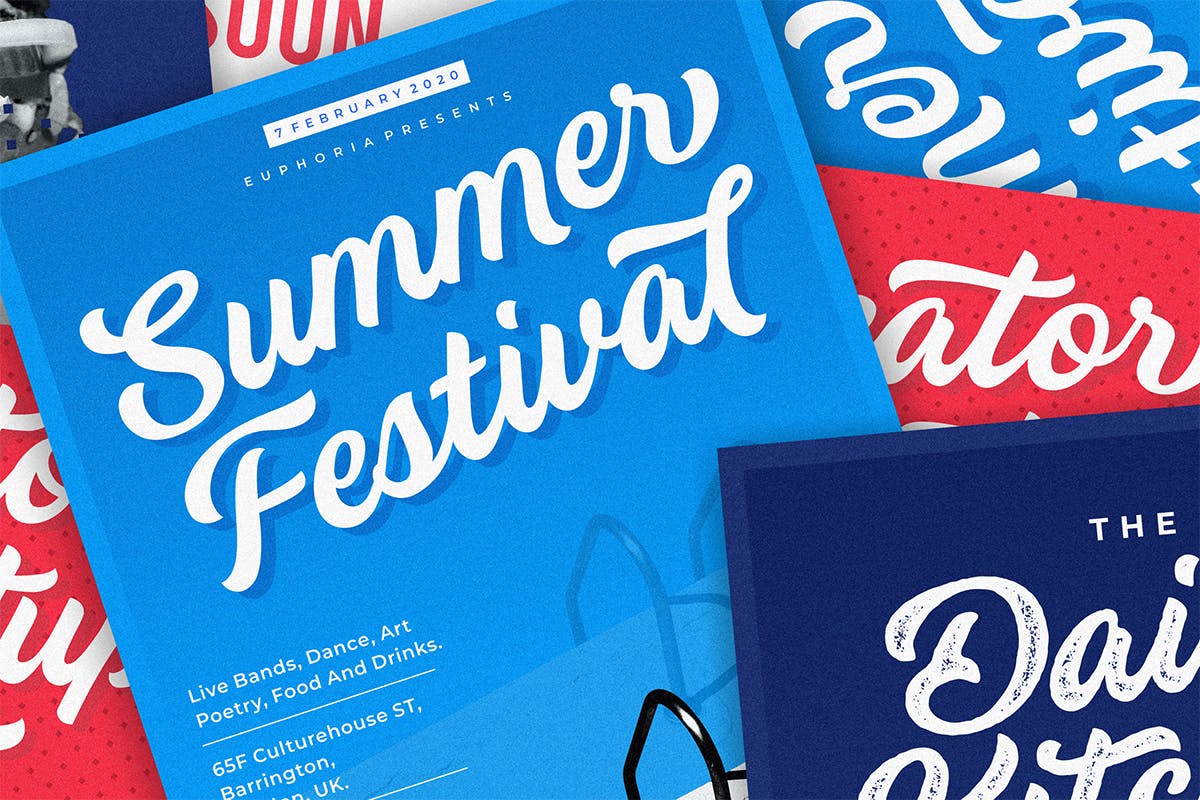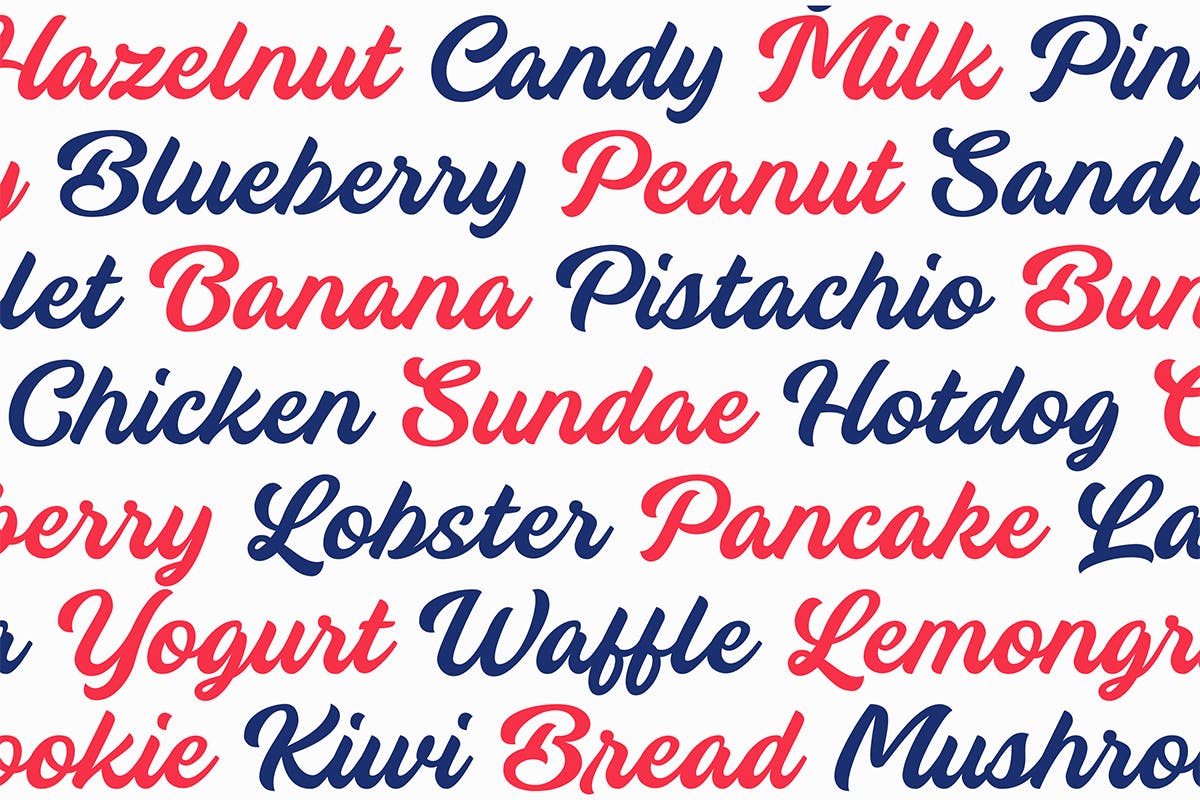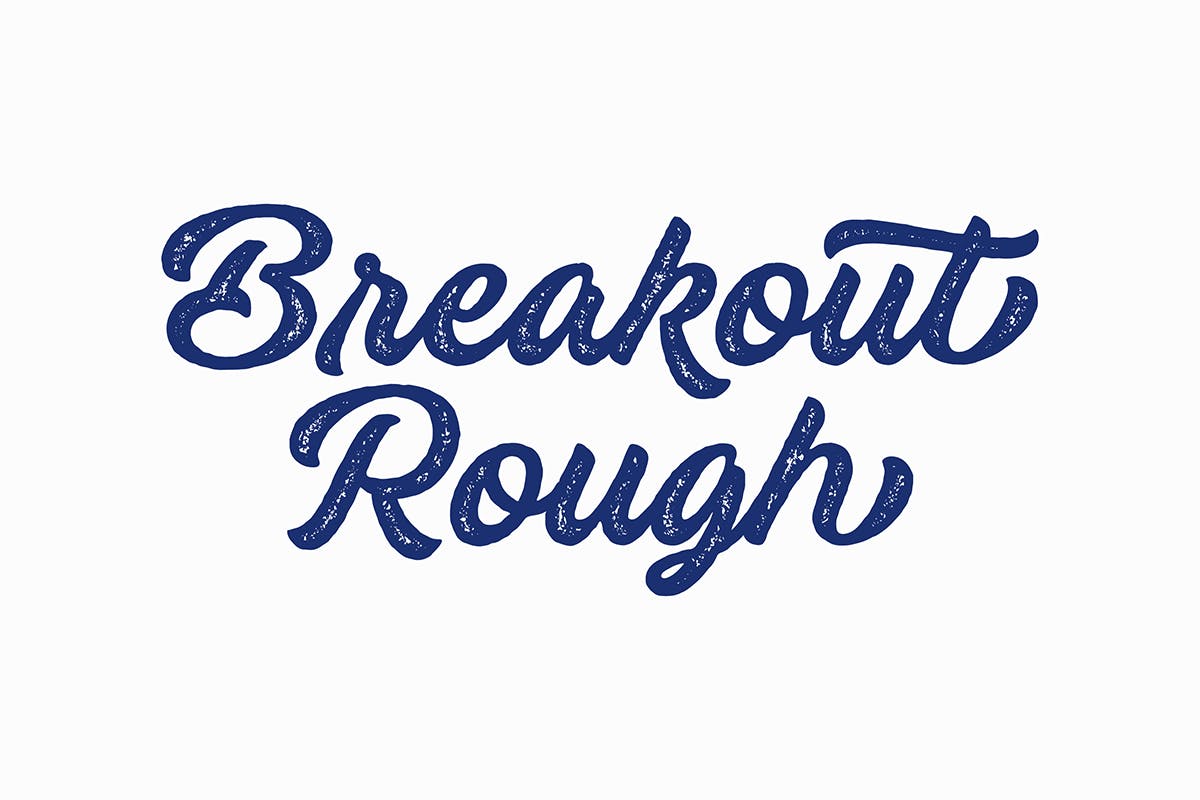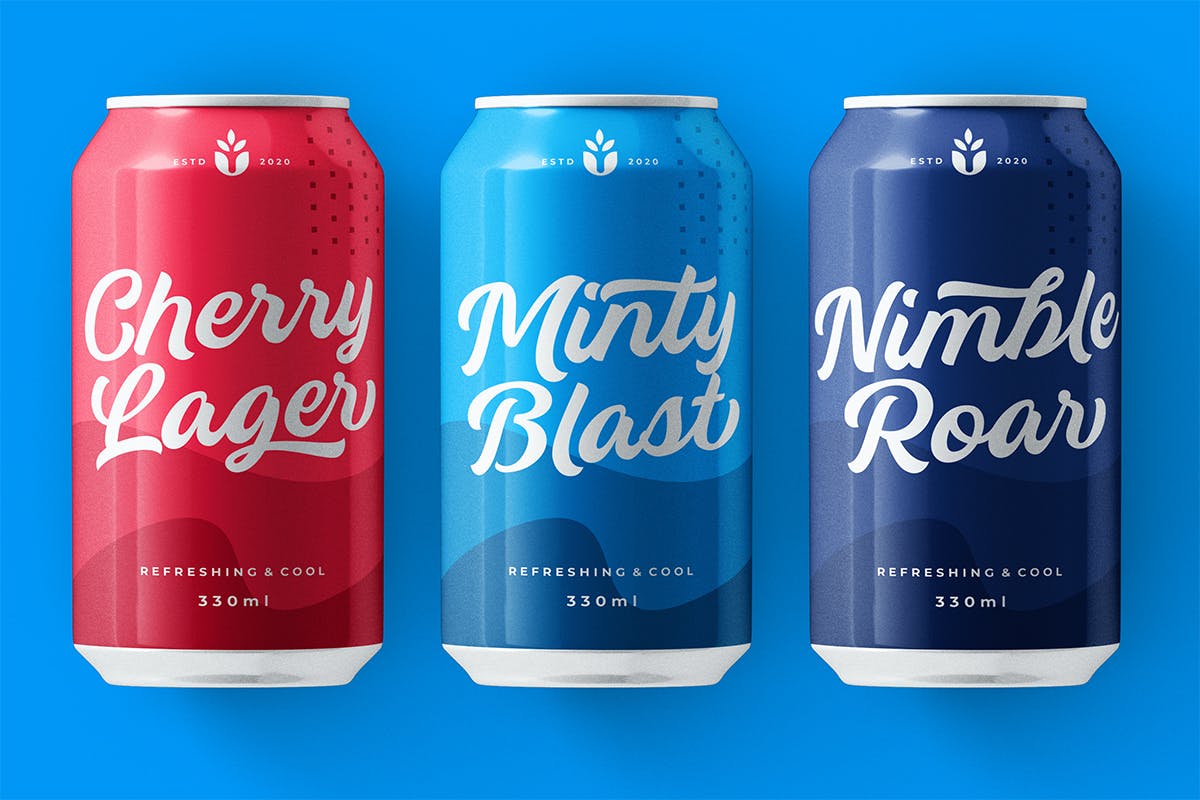
Free Demo Breakout Script Font
Free Demo Breakout Script Font is a carefully a hand-lettering bold script font. It comes in two styles; regular and rough versions. This font has some of the alternatives to each letter to make it look unique and attractive. It can give a solid and standout impression. This typeface is suitable for logotype, digital printing, and many more. However, this demo fontย is only allowed for a personal use license, but, donโ€™t worry you can get more features by making a purchase for it.